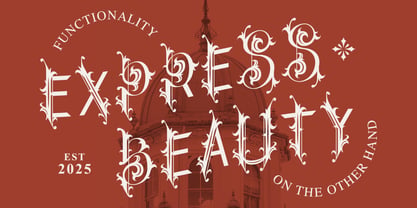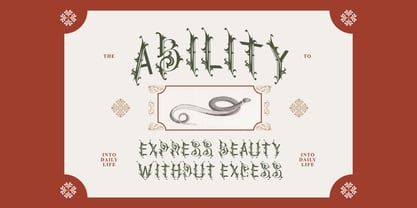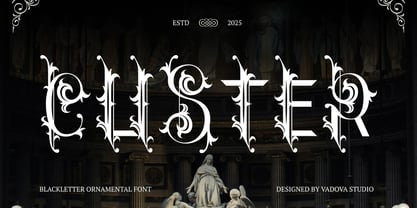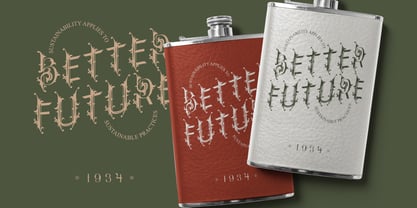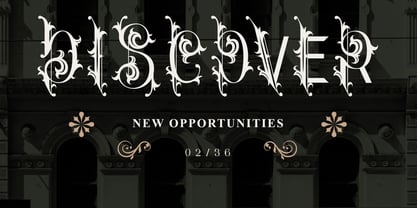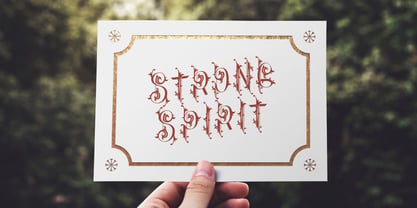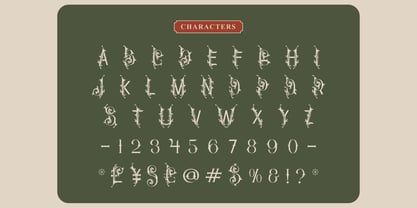
Clister
von Vadova Std
Die Schriftfamilie Clister entworfen und von Vadova Std veröffentlicht. Clister enthält 1 Stile. Mehr über diese Familie
Clister combines classic gothic influences with decorative ornamental details that create a dramatic and luxurious medieval aesthetic. The typeface features uppercase characters, numerals, punctuation, and artistic flourishes crafted with sharp blackletter-inspired strokes and elegant vintage styling. Its expressive ornamental structure delivers a dark romantic atmosphere suitable for premium branding, music artwork, editorial layouts, posters, and historical-inspired creative projects.
Relevance & Use Cases is relevant for creative projects that require a luxurious gothic and historical visual identity. The font works effectively for album covers, tattoo branding, gothic fashion labels, fantasy book covers, medieval posters, luxury packaging, editorial headlines, event invitations, historical branding, and cinematic promotional materials with a dramatic ornamental aesthetic.